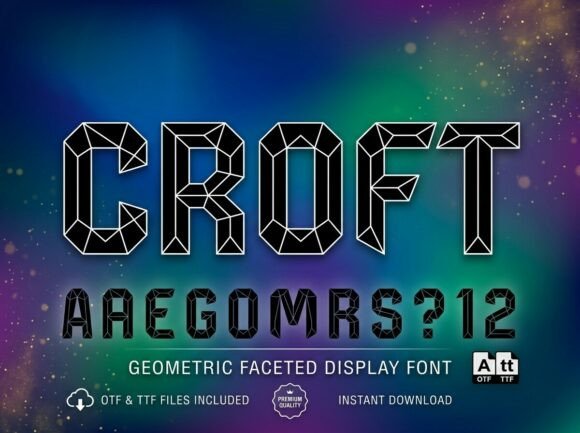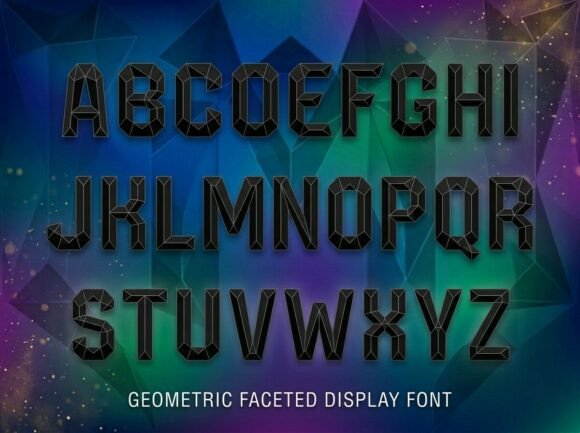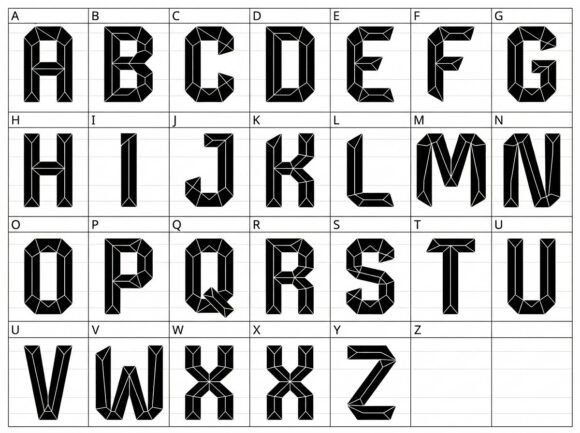
Unlock the Brilliance of Croft Font: Elevate Your Visual Storytelling
In the realm of typography, few fonts have managed to capture the essence of luxury, innovation, and artisanal beauty as effectively as Croft Font. This premium display font, inspired by the intricate geometry of precious gemstones, is a game-changer for designers and crafters seeking to elevate their visual storytelling. With its bold, architectural letterforms and mesmerizing crystalline texture, Croft is poised to revolutionize the way you approach branding, logos, gaming titles, and editorial headers.
The Inspiration Behind Croft Font
Croft Font draws its inspiration from the complex geometry of precious gemstones, meticulously crafting each letterform from an intricate web of faceted triangles and polygons. This high-concept approach results in a font that exudes sharp geometric precision and a high-tech silhouette, perfect for luxury jewelry branding, innovative tech logos, futuristic gaming titles, and high-concept editorial headers.
Unparalleled Design and Features
Croft Font boasts an extraordinary design that sets it apart from other typefaces. Its bold, architectural letterforms are constructed from a complex network of faceted triangles and polygons, creating a mesmerizing crystalline texture that adds depth and visual interest to any design. The font’s sharp geometric precision and high-tech silhouette make it an ideal choice for:
- Luxury jewelry branding: Add a touch of sophistication and elegance to your brand with Croft’s luxurious feel.
- Innovative tech logos: Convey a sense of innovation and forward-thinking with Croft’s cutting-edge design.
- Futuristic gaming titles: Create immersive gaming experiences with Croft’s bold and futuristic aesthetic.
- High-concept editorial headers: Elevate your editorial design with Croft’s unique and captivating visual style.
The Benefits of Using Croft Font
By incorporating Croft Font into your visual communication, you can expect to deliver a sense of brilliant innovation and structured artisanal beauty to your audience. This font is designed to make every word feel like a multifaceted masterpiece, perfect for designers and crafters seeking to:
- Create visually stunning designs that capture attention.
- Convey a sense of luxury and sophistication.
- Stand out in a crowded market with a unique and memorable visual identity.
Tips for Using Croft Font Effectively
To get the most out of Croft Font, consider the following tips:
- Use Croft Font in large sizes to maximize its impact and visibility.
- Experiment with different colors and textures to enhance the font’s crystalline texture.
- Pair Croft Font with complementary fonts to create visual interest and contrast.
- Don’t be afraid to get creative and push the boundaries of what’s possible with Croft Font.
Croft Font is a premium display font that offers a unique blend of luxury, innovation, and artisanal beauty. With its bold, architectural letterforms and mesmerizing crystalline texture, Croft is the perfect choice for designers and crafters seeking to elevate their visual storytelling. Whether you’re looking to create stunning luxury jewelry branding, innovative tech logos, futuristic gaming titles, or high-concept editorial headers, Croft Font is sure to deliver.
So why settle for ordinary typography when you can unlock the brilliance of Croft Font? Elevate your visual communication and make every word feel like a multifaceted masterpiece with this extraordinary font.